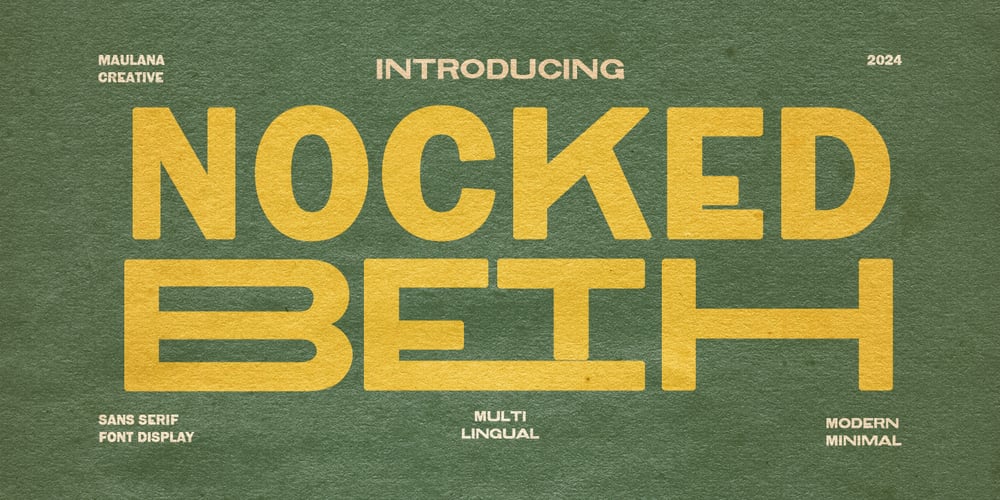
MC Nocked Beth Font Family was designed by Gilang Maulana and published by Maulana Creative. MC Nocked Beth contains 1 styles and family package options. Nocked Beth is a modern minimal sans serif display font. With bold stroke, fun character with some of ligature and alternate. To give you an extra creative work. Nocked Beth Display font support multilingual more than 100+ language. This font is good for logo design, Social media, Movie Titles, Books Titles, a short text even a long text letter and good for your secondary text font with script or signature typeface. Make a stunning work with Nocked Beth modern minimal sans serif display font.Cheers,Maulana Creative